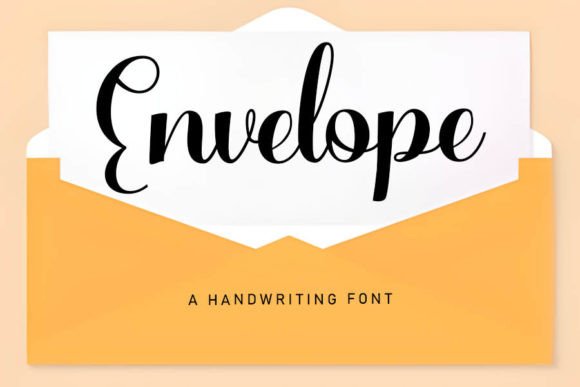
Presenting the enchanting Envelope Font - a magical script font that will sweep you off your feet. Experience the elegance and grace of handwritten letters with this captivating font, lovingly crafted by Leontyn Art. Step into a world of dreams and imagination, where words take on a life of their own.
Indulge in the beauty of flowing lines and delicate curves that will add a touch of luxury to your creative projects. Let Envelope Font guide you through the pages of a captivating script, inviting you to lose yourself in the magic of storytelling.
With Envelope Font, your words will dance across the page, capturing the essence of romance and adventure. Transform ordinary text into an extraordinary journey, where each letter becomes a work of art. Feel the emotions, sense the passion, and immerse yourself in the boundless creativity that this font inspires.
Embrace the charm and allure of Envelope Font and let your imagination soar. Whether you're designing invitations, crafting logos, or creating social media posts, this font is your passport to a world of endless possibilities.
Don't let your words be ordinary - elevate them with the elegance and grace of Envelope Font. Experience the joy of creation and make your stories come alive. Dive into the world of wonder and embark on a typographic adventure like no other.